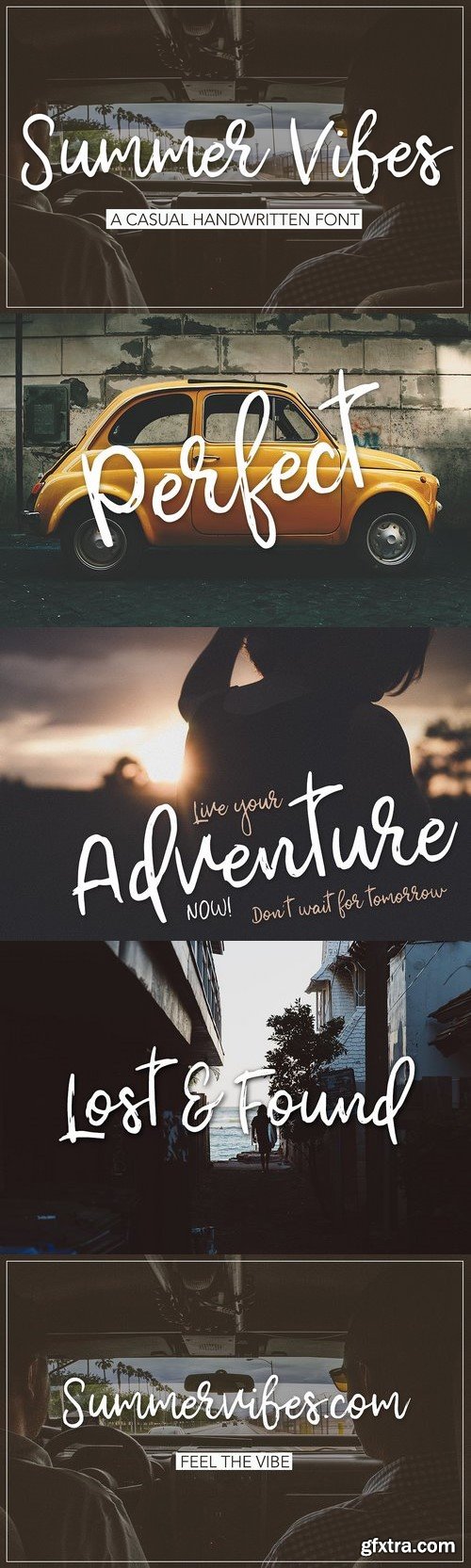
CM - Summer Vibes Script 1776070
Introducing a new font, called Summer Vibes! It's handwritten script. This font is ideal for branding and decorate your any project. This font are perfect for wedding invitation or your blog. Also with their help, you can create a logo or beautiful frame for your home. Or just use for your small business, book covers, stationery, marketing, magazines and more.